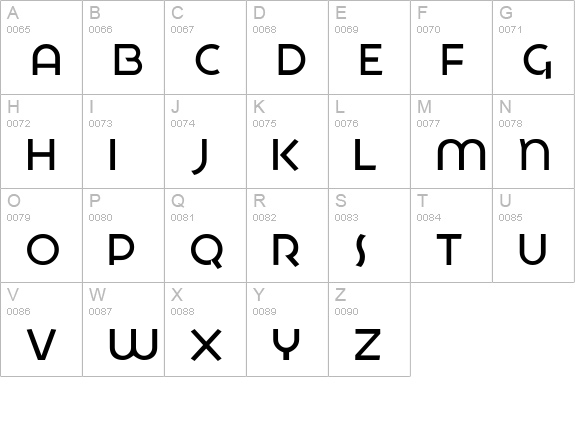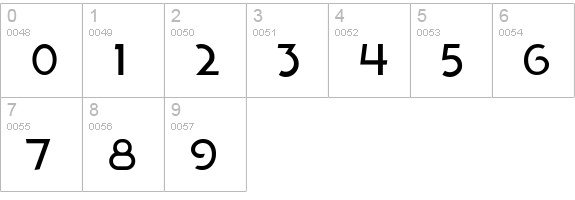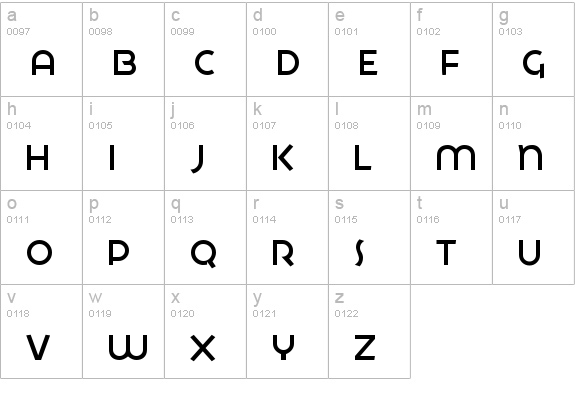
GoyaLight Font Details
GoyaLight is a versatile and elegant font that exudes sophistication and modernity. With its clean lines and subtle curves, this typeface is perfect for adding a touch of refinement to any design project. Whether you're creating a logo, designing a website, or crafting a marketing campaign, GoyaLight is sure to make a lasting impression. The best part? GoyaLight is available for free download at FontsMarket.com! This means you can easily access this high-quality font without any cost, making it a valuable addition to your creative toolkit. Don't miss out on the opportunity to elevate your designs with GoyaLight's timeless style and effortless charm. Download it today and see the difference it can make in your projects.